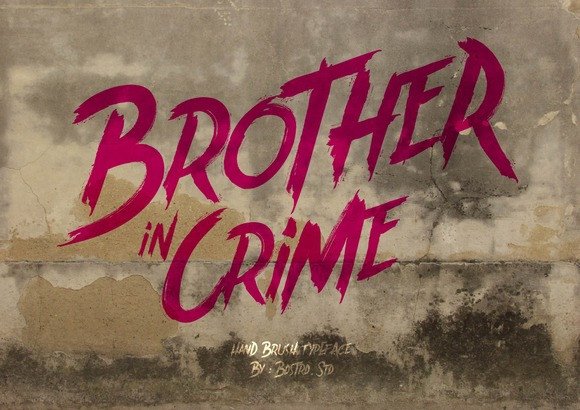
Brother in Crime Font
Introducing Brother in Crime Font: Unleash Your Creative Spirit and Make a Statement with Every Word
In the vast world of typography, Brother in Crime Font stands out as a true masterpiece, a testament to the power of creativity and self-expression. Inspired by the vibrant graffiti that adorns the walls of Bandung, Indonesia, this brush typeface captures the essence of urban art, bringing a touch of rebellion and authenticity to your digital creations.
Brother in Crime Font is more than just a collection of letters; it's an invitation to break free from the ordinary and embrace your individuality. With its rough edges and rebellious spirit, this font adds a unique charm to your designs, whether you're creating logos, posters, social media graphics, or any other visual masterpiece.
As you glide through the characters of Brother in Crime Font, you'll feel the pulse of the city streets, the energy of the graffiti artists, and the raw emotion that fuels their creativity. This font is not for the faint of heart; it's for those who dare to be different, who want their words to resonate with power and authenticity.
Whether you're a seasoned designer or just starting your creative journey, Brother in Crime Font is the perfect tool to add a touch of edge and personality to your projects. Its bold strokes and dynamic flow demand attention, making your message impossible to ignore.